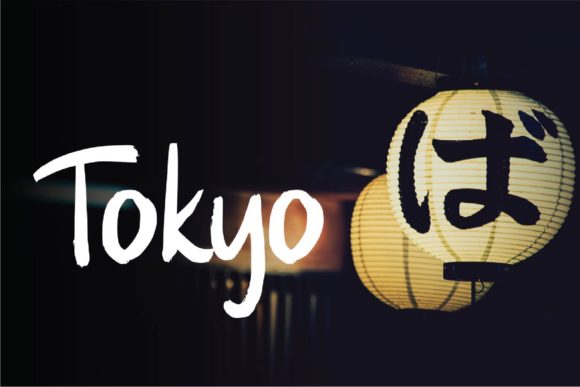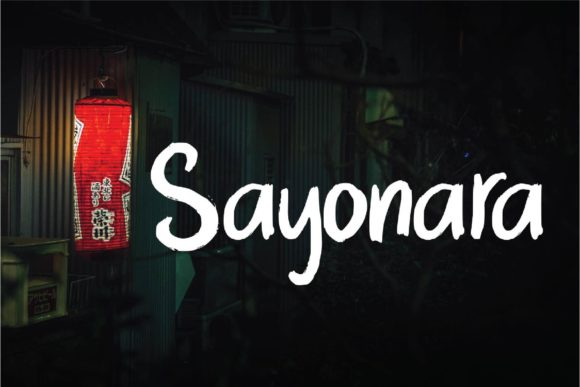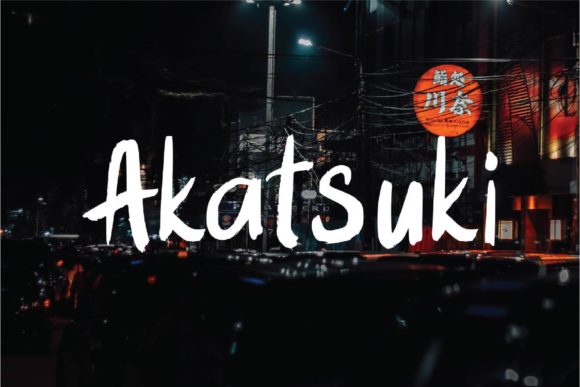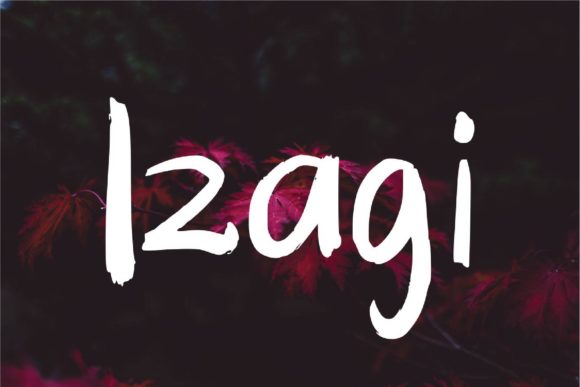
Haruko Font
About Haruko Font
Haruko is a bold and powerful script with a modern vibe. It will add an urban, yet authentic spin on any design project.